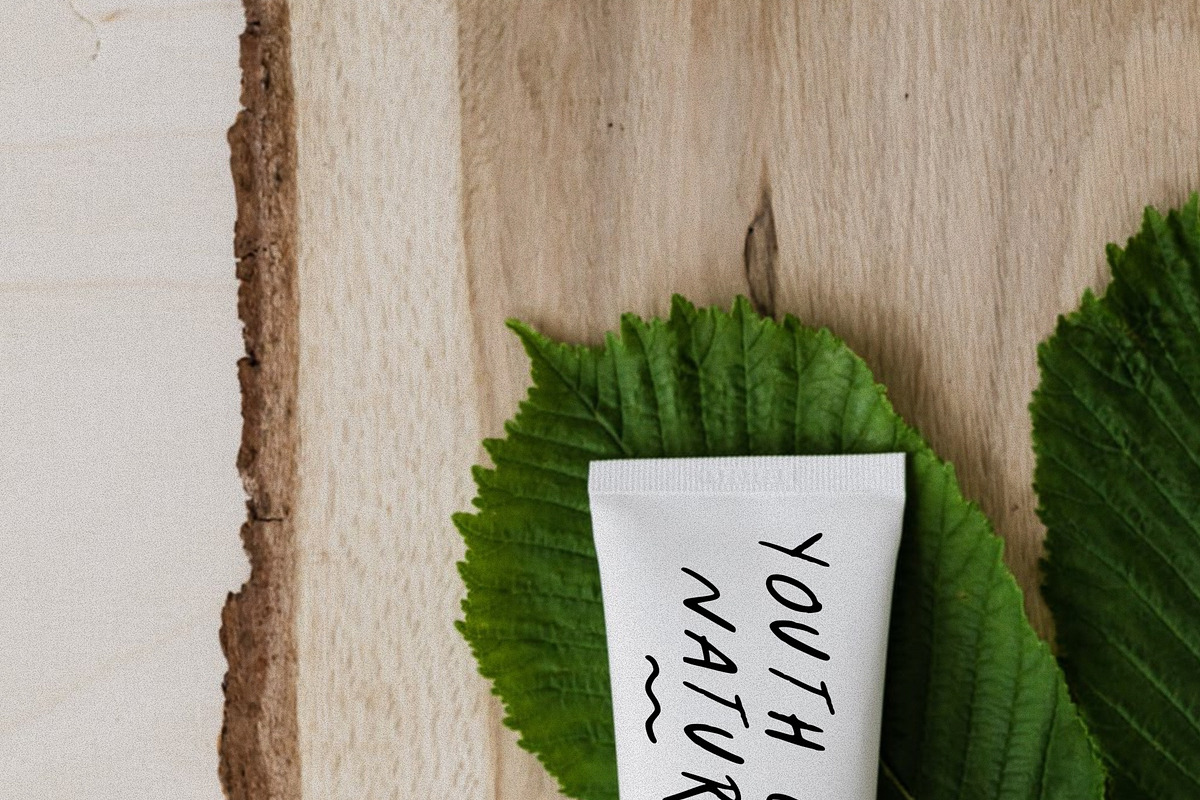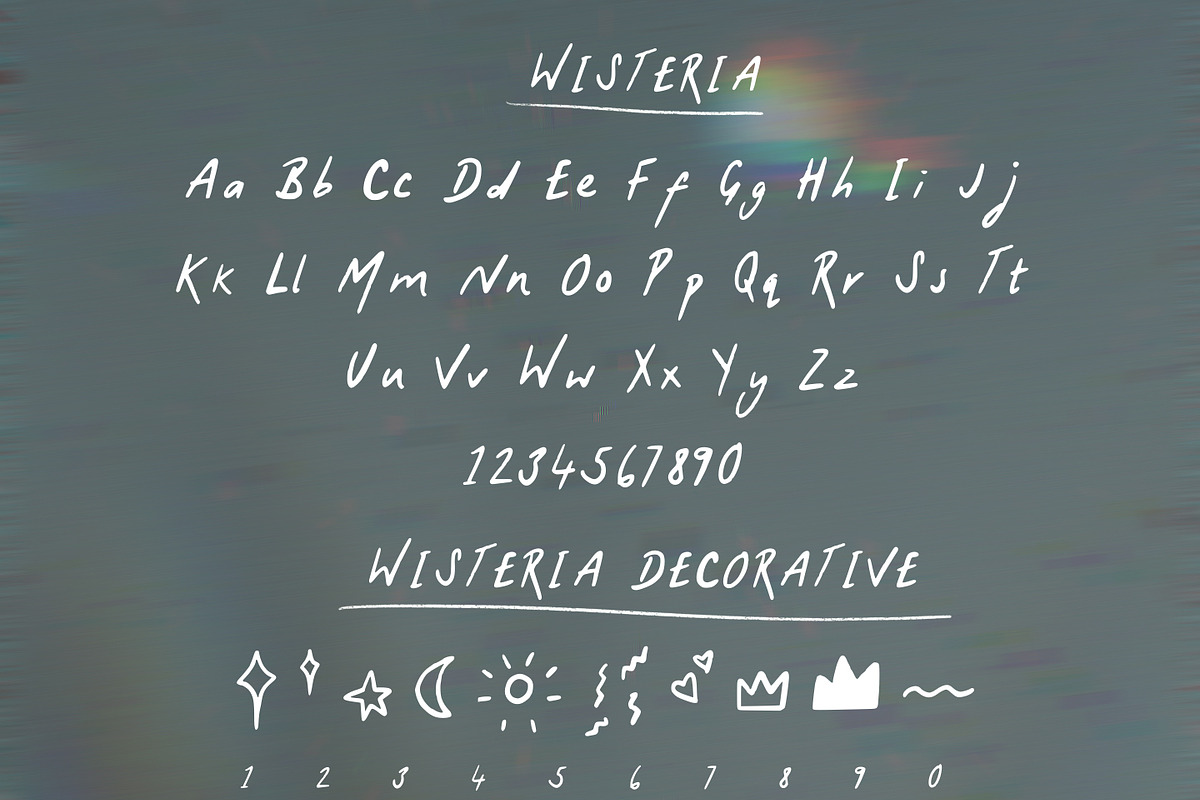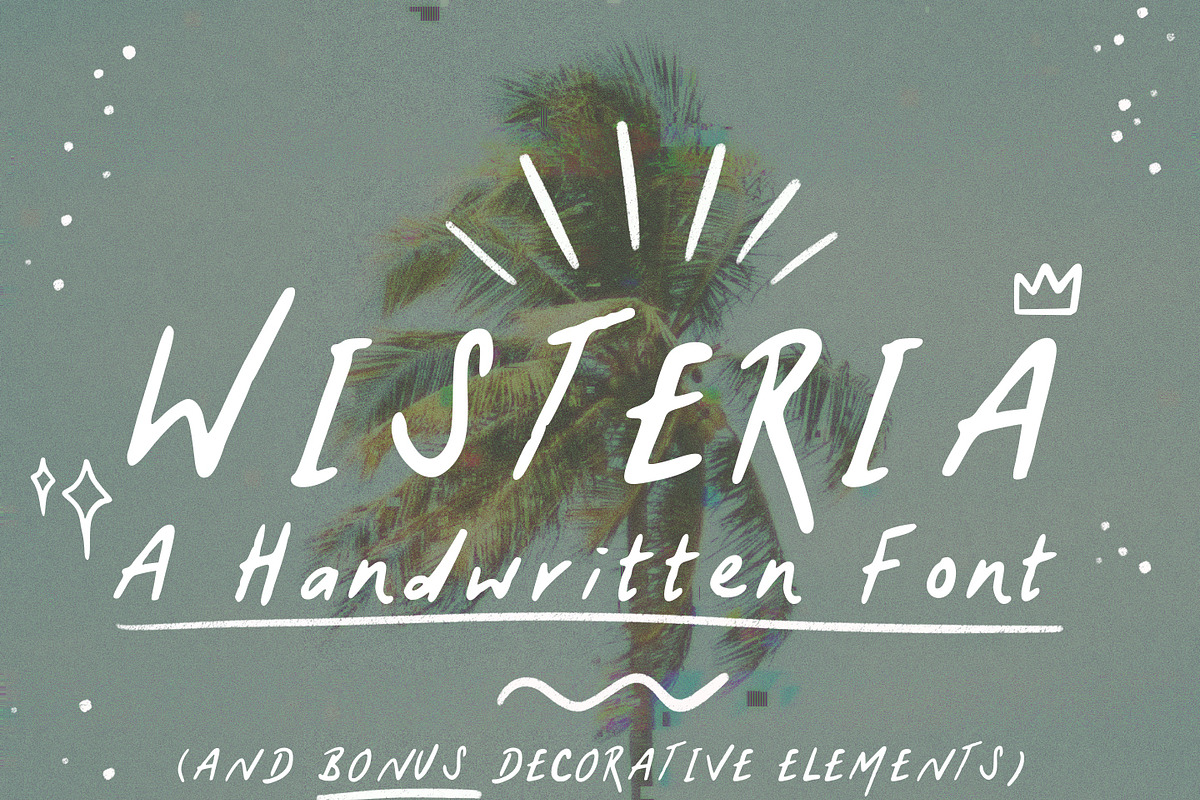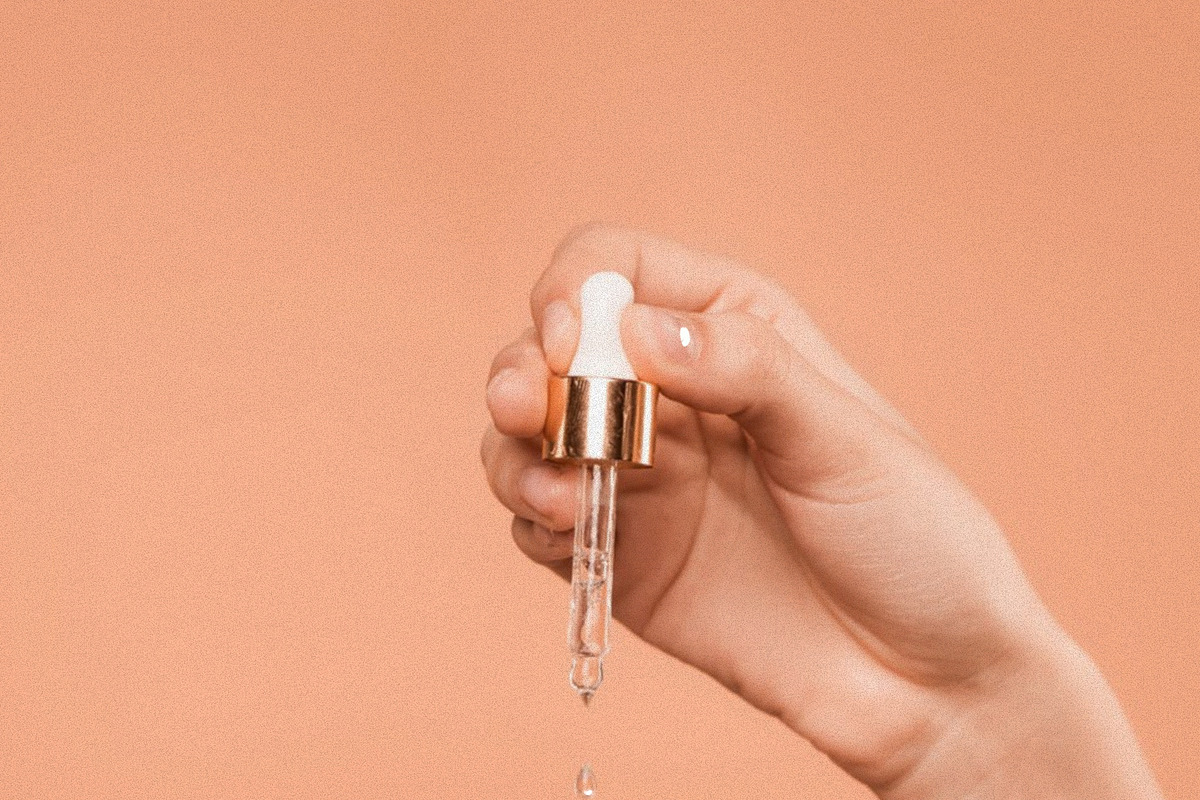
Wisteria - A Handwritten Font
An organic, textured handwritten font with BONUS decorative elements. Wisteria is a handwritten font perfect for branding, graphics and merchandise.
- Basic German, French and Spanish alphabet